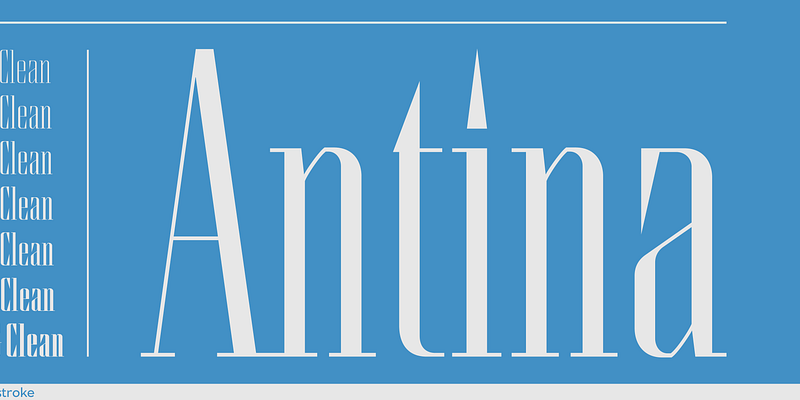
Antina emerged from Tony’s development of the Thinstroke logotype. Its sharp and clean lines and rational structure adapted well to a large family of weights.